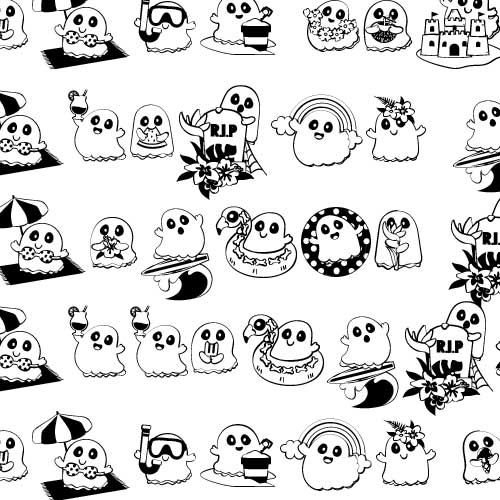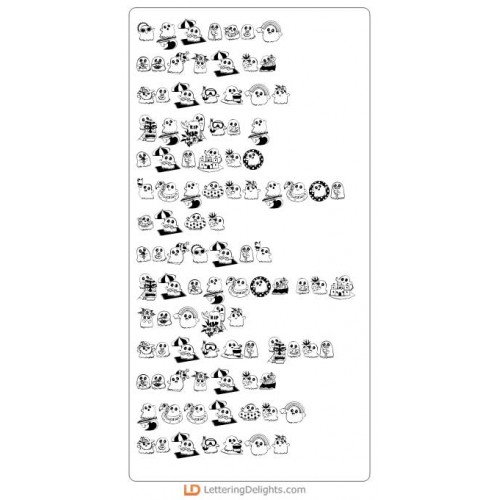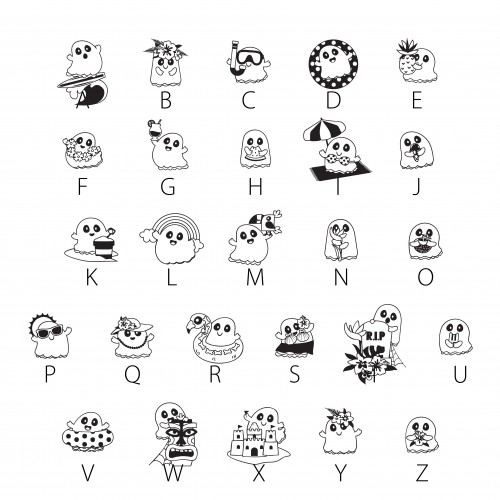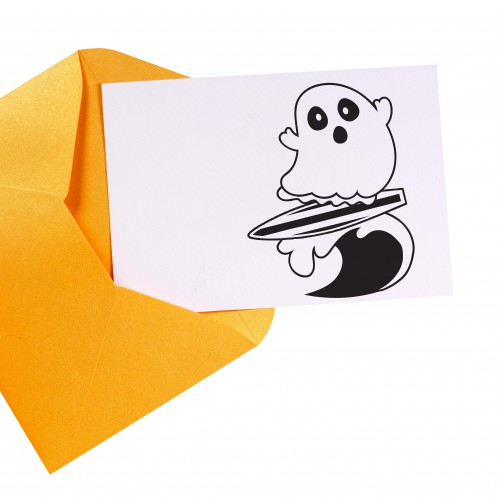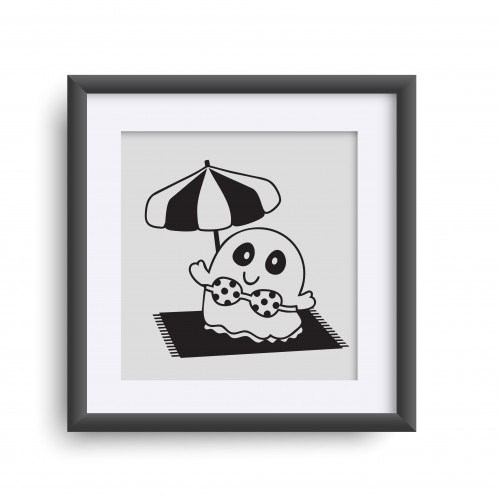
DB Summerween - Boos - DB
This adorable doodlebat font features 26 summer ghosts. Perfect for parties, cards, crafts, gifts, decor, planner stickers, classrooms, scrap book pages and more!